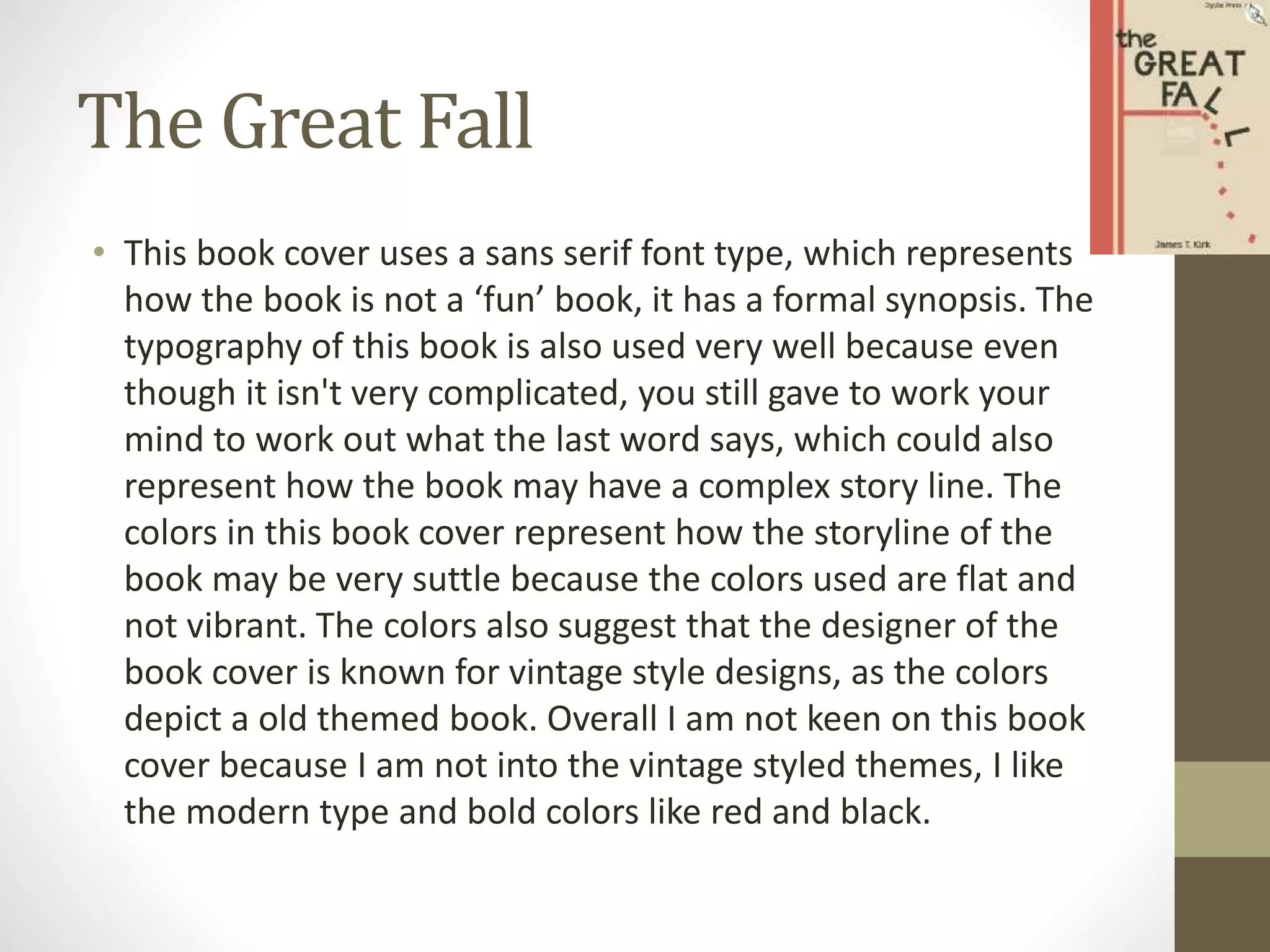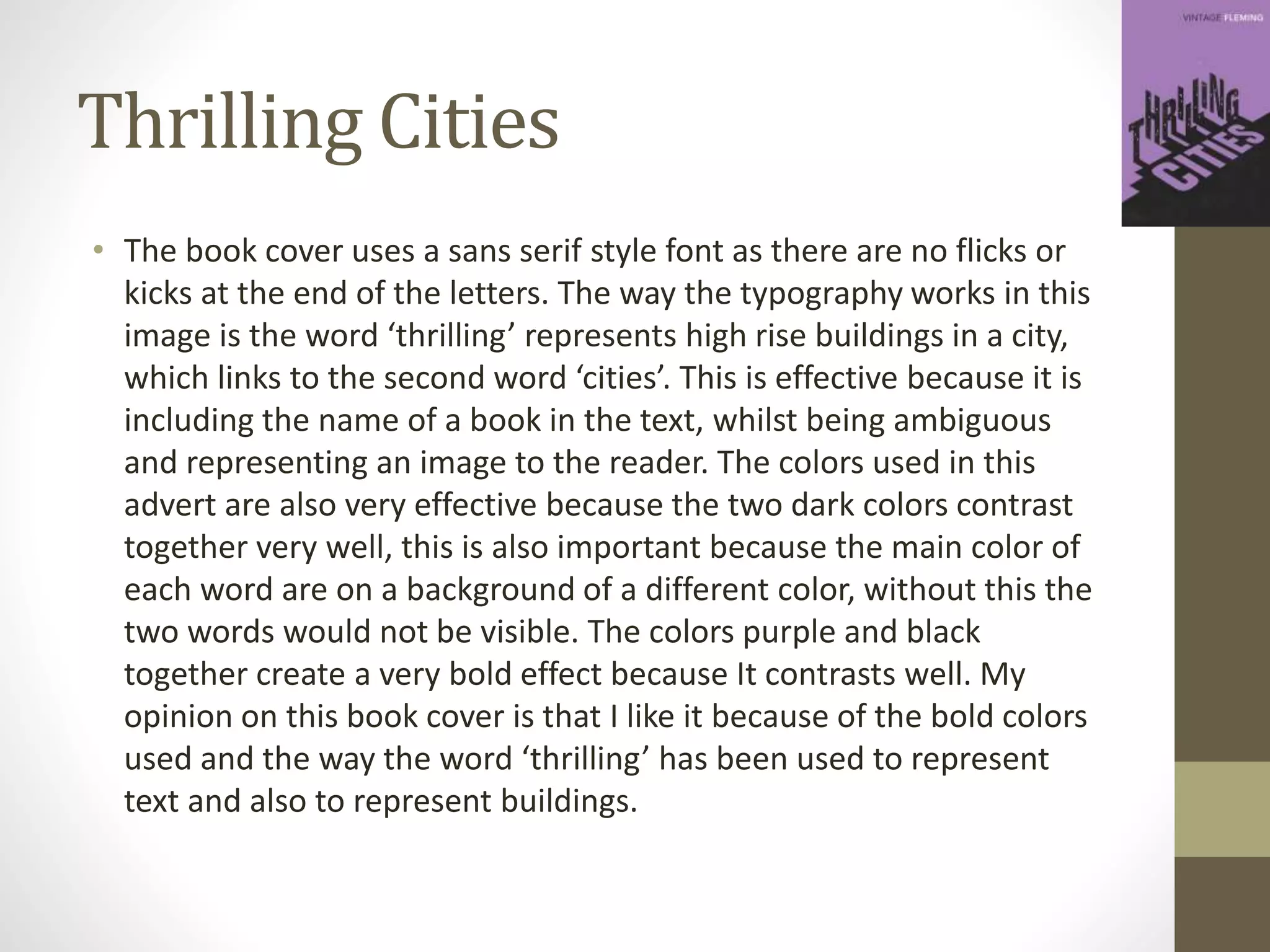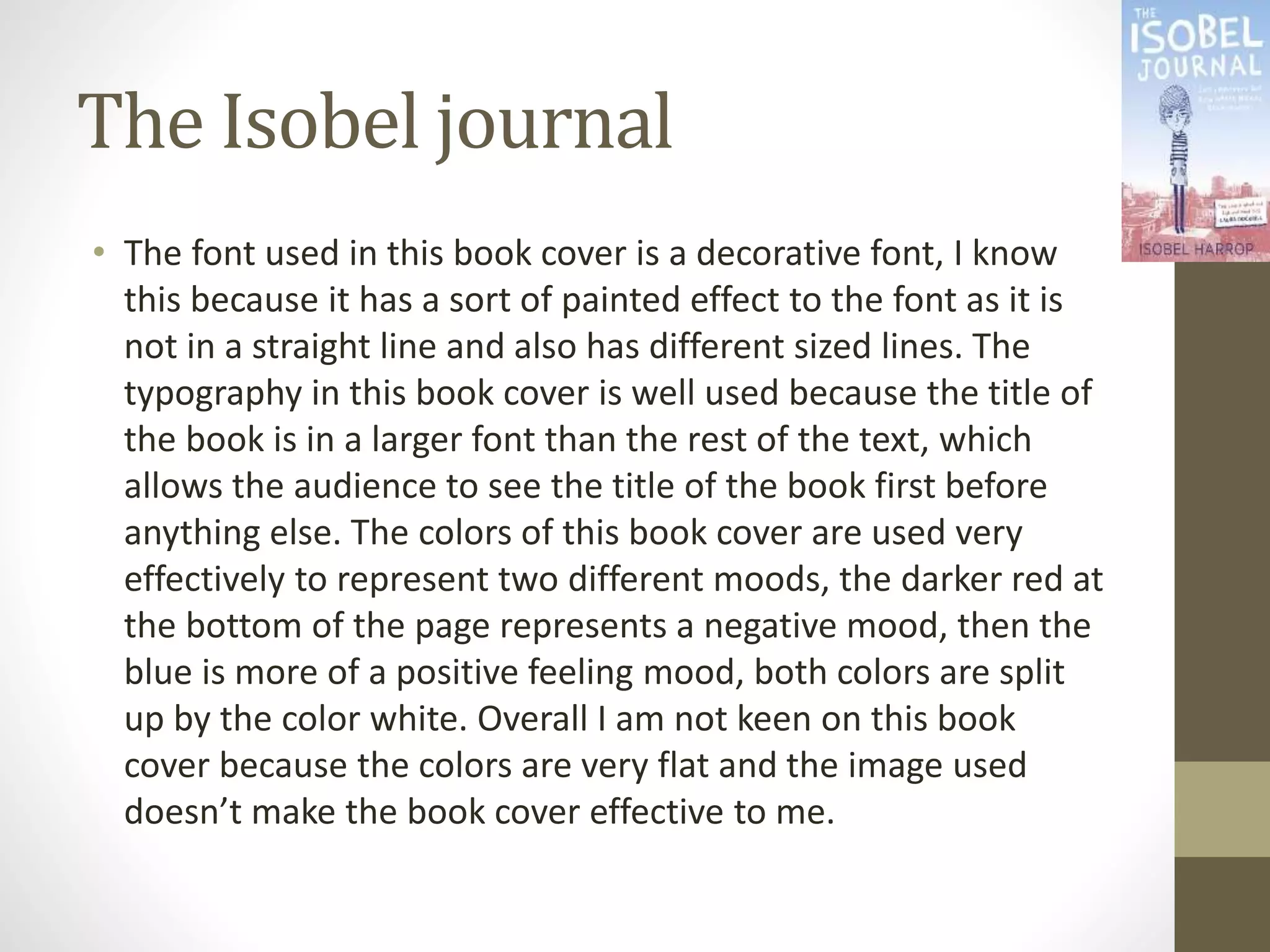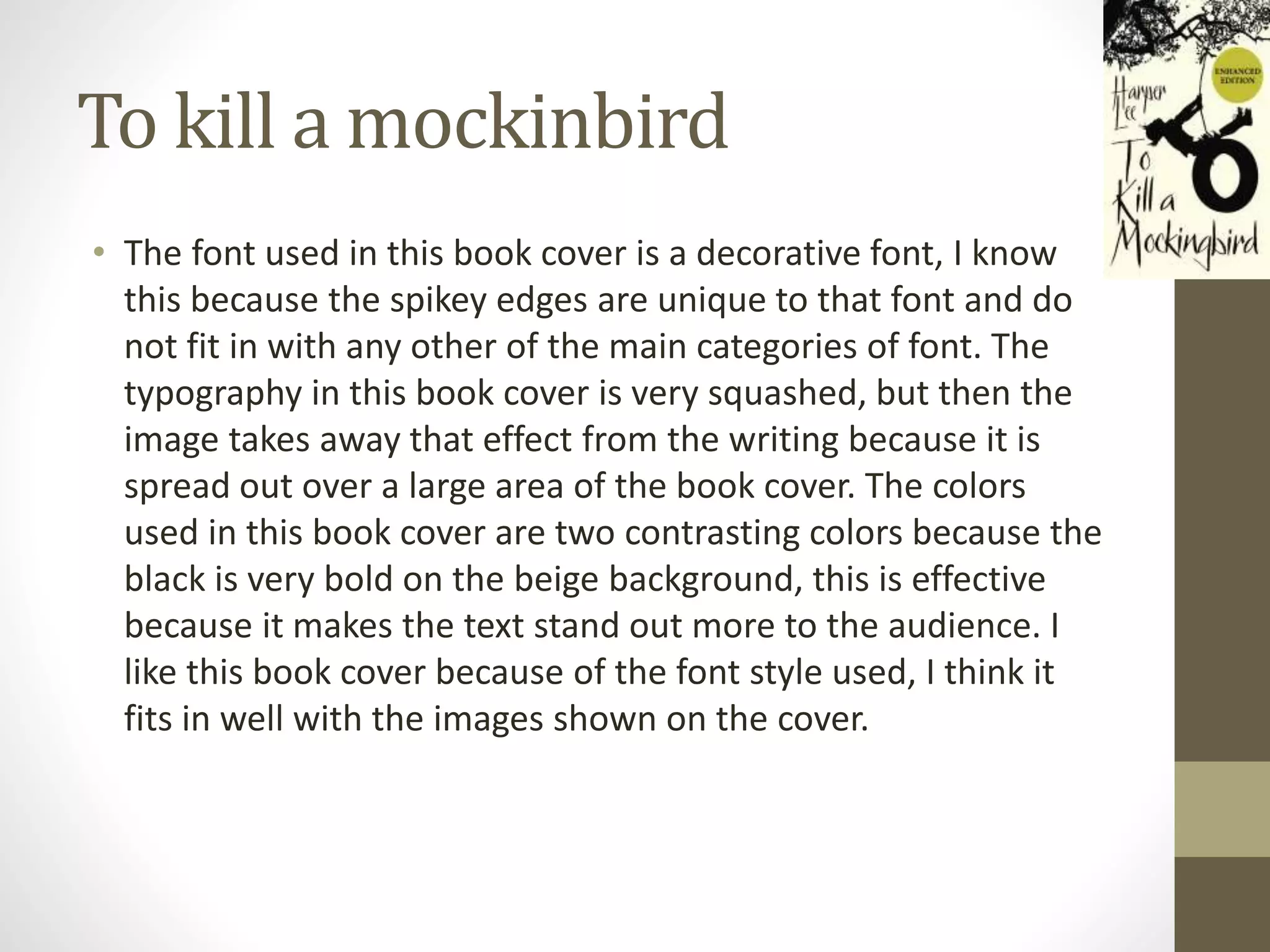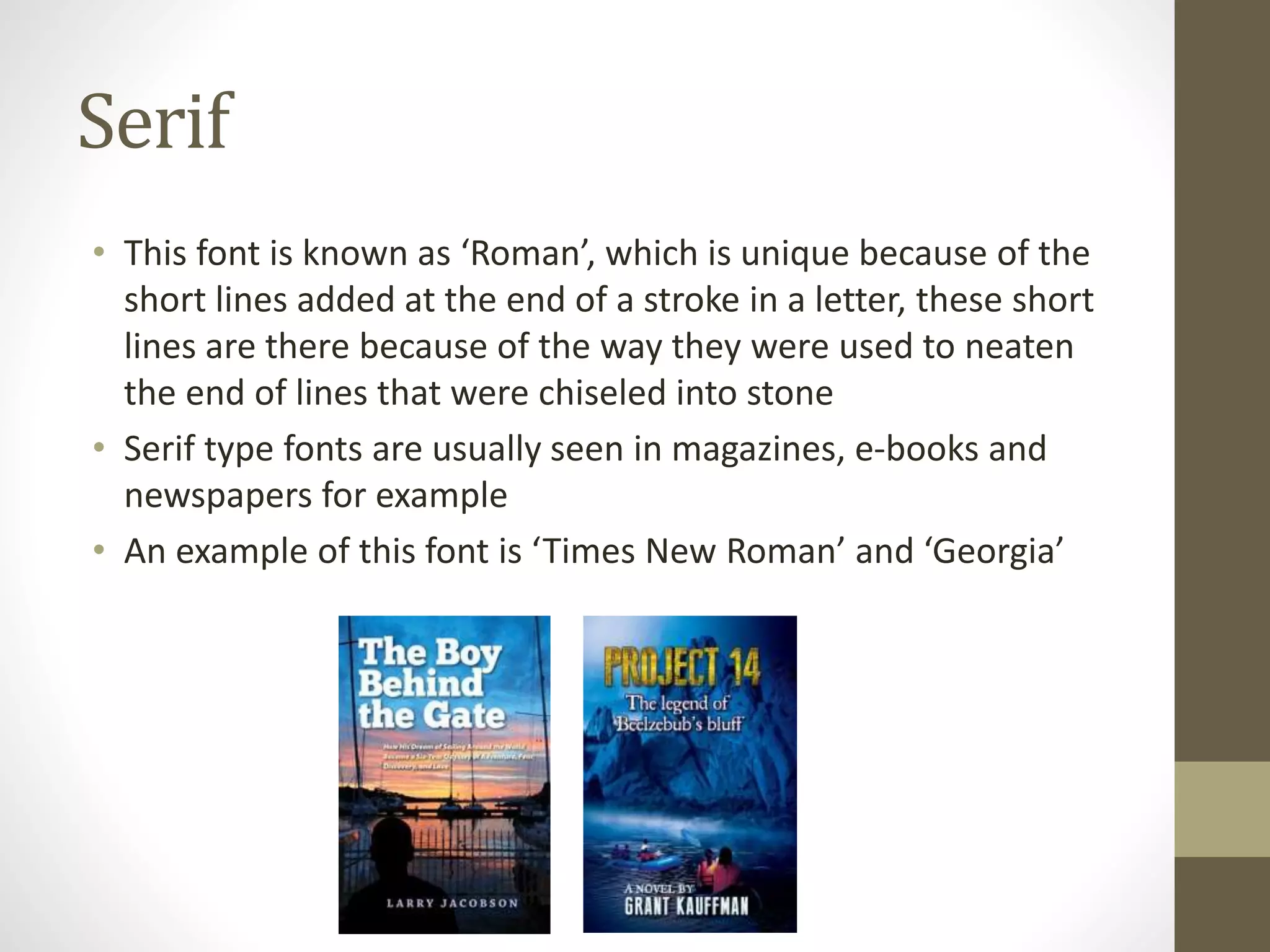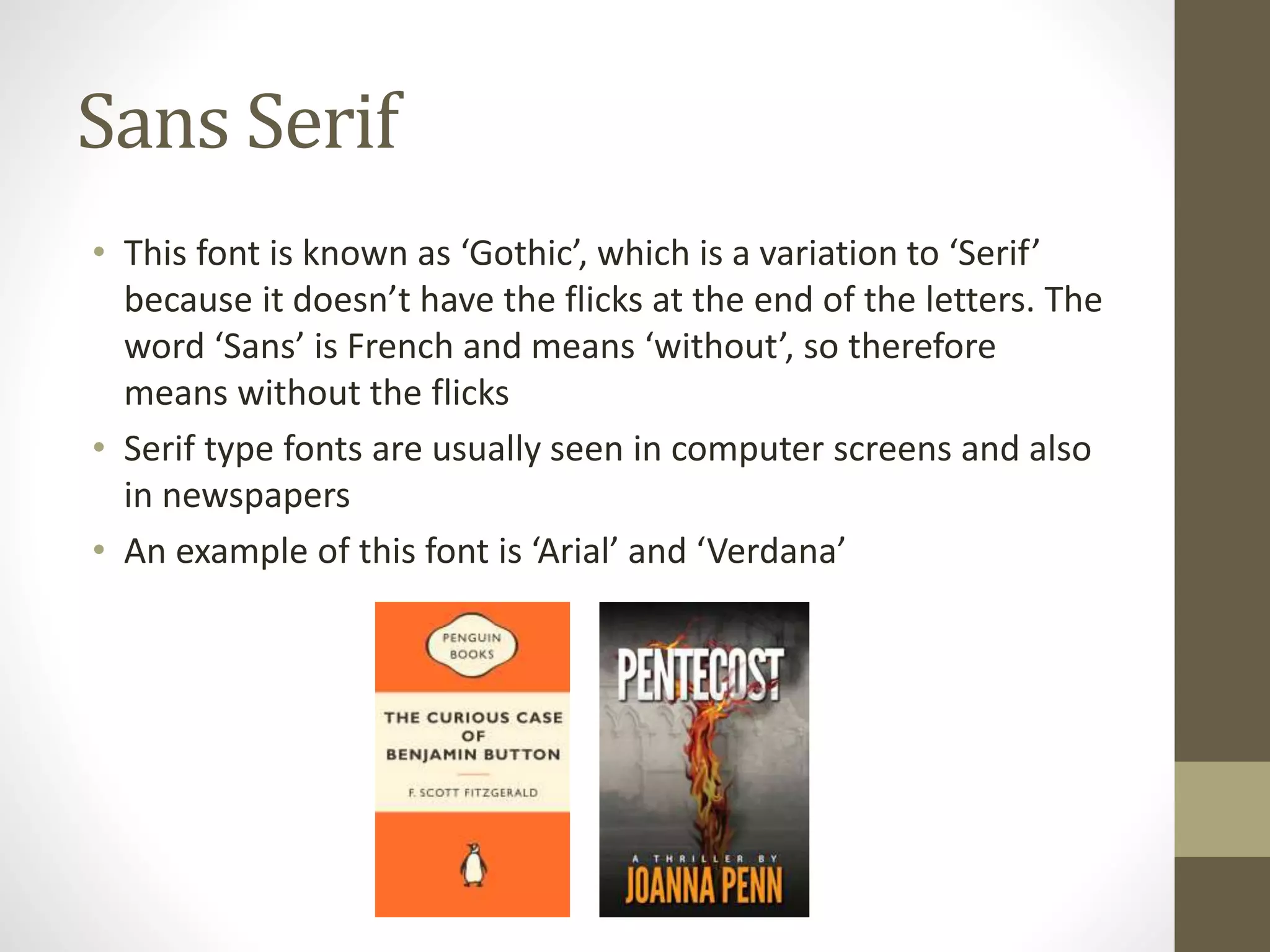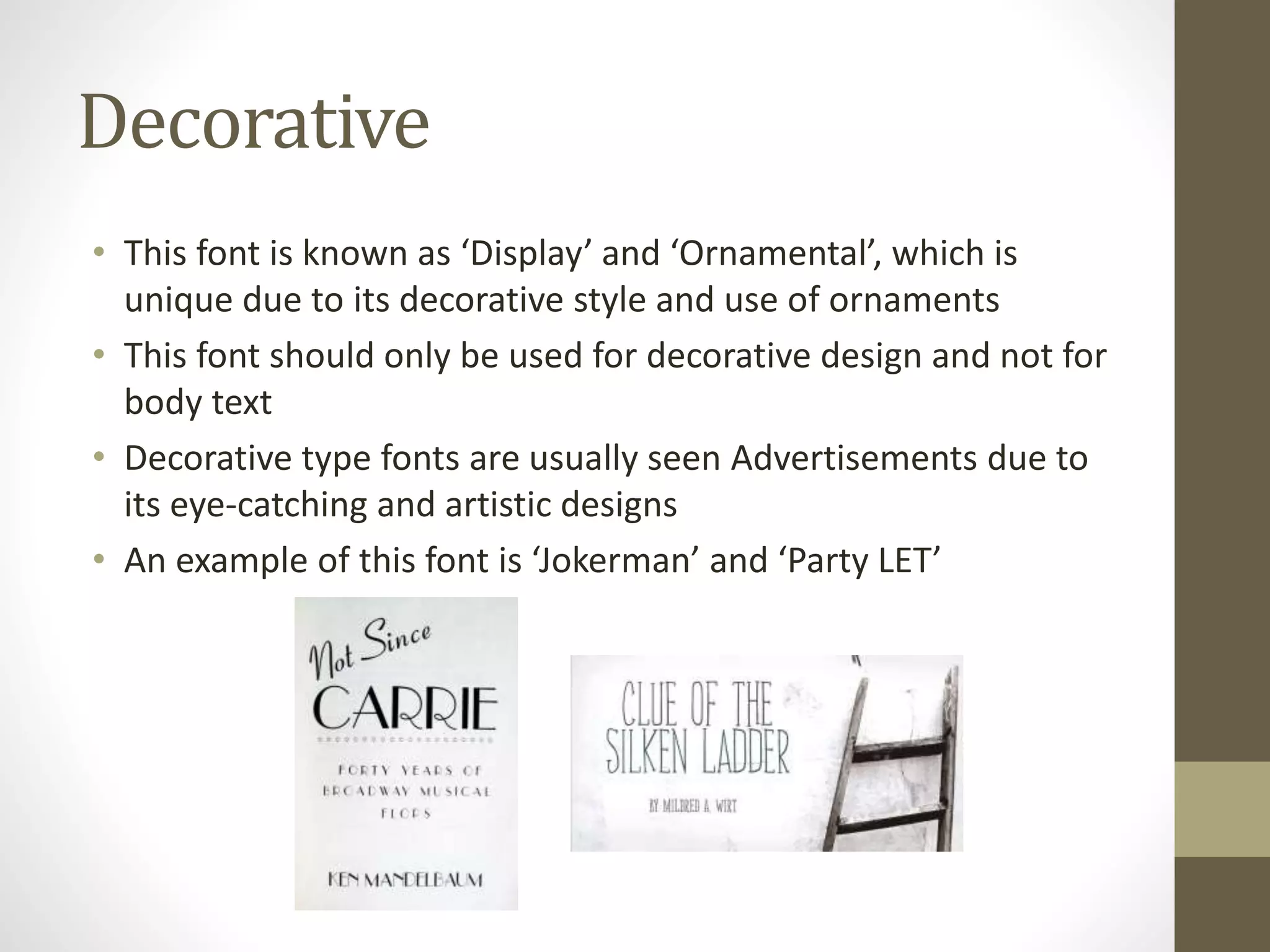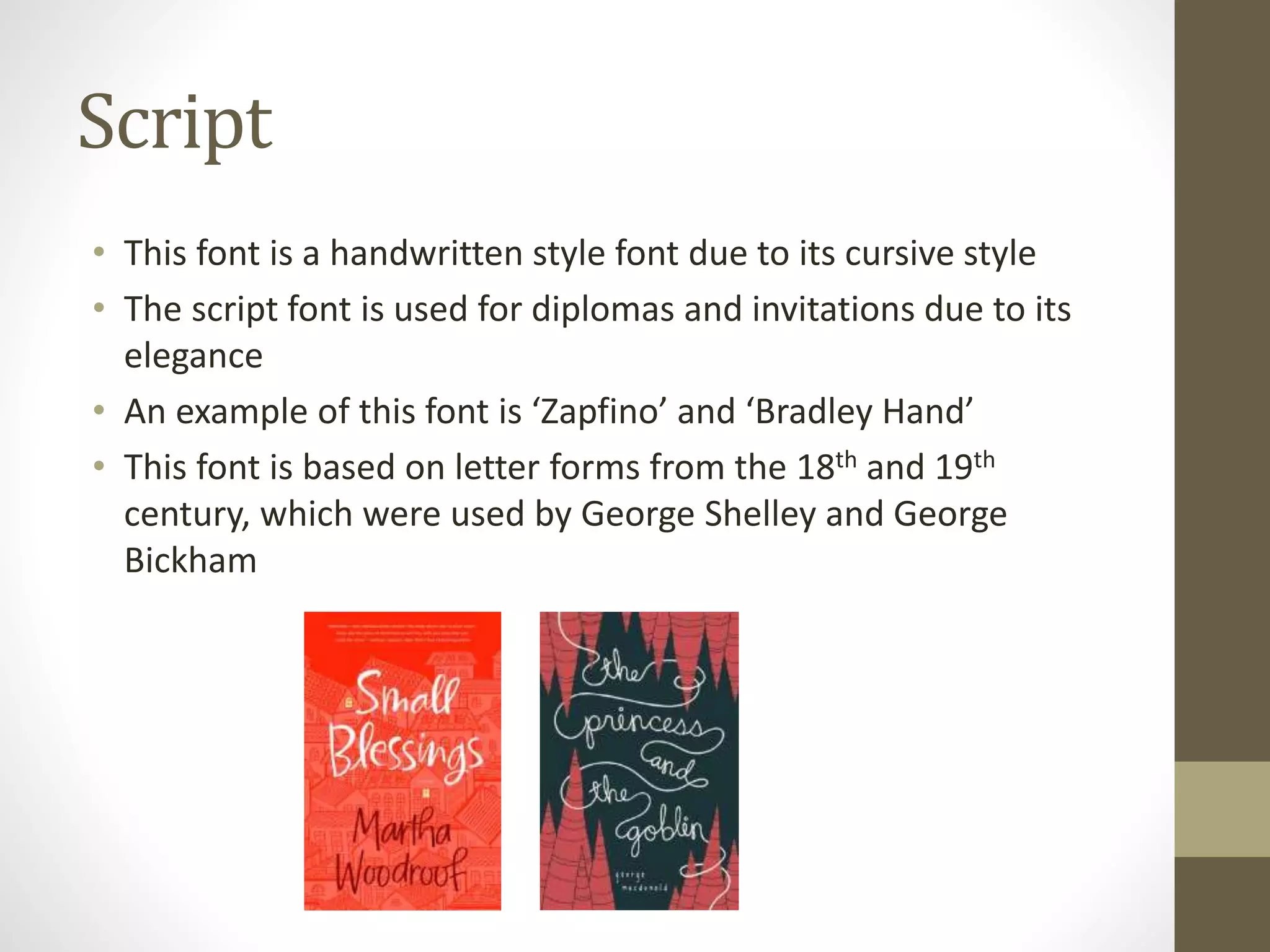
Typography (fonts)
• Photoshop uses many fonts, aswell as most other programs,
but there are 4 main font types that are used
• These different fonts are used depending on the context of
the piece of work that you are doing, for example script would
be used when typing up a formal letter or to add a signature
No flicks or kicks at end of letters
Flicks or kicks at end of letters
Hand written style font
More of a playful font
Font Families
• Different fonts can have ‘families’, which means that there are
different types of that font, e.g Bold, Italic, Regular.
• There are a lot of fonts in photoshop that have font families,
for example Myriad
Serif
• This font is known as ‘Roman’, which is unique because of the
short lines added at the end of a stroke in a letter, these short
lines are there because of the way they were used to neaten
the end of lines that were chiseled into stone
• Serif type fonts are usually seen in magazines, e-books and
newspapers for example
• An example of this font is ‘Times New Roman’ and ‘Georgia’
Sans Serif
• This font is known as ‘Gothic’, which is a variation to ‘Serif’
because it doesn’t have the flicks at the end of the letters. The
word ‘Sans’ is French and means ‘without’, so therefore
means without the flicks
• Serif type fonts are usually seen in computer screens and also
in newspapers
• An example of this font is ‘Arial’ and ‘Verdana’
Decorative
• This font is known as ‘Display’ and ‘Ornamental’, which is
unique due to its decorative style and use of ornaments
• This font should only be used for decorative design and not for
body text
• Decorative type fonts are usually seen Advertisements due to
its eye-catching and artistic designs
• An example of this font is ‘Jokerman’ and ‘Party LET’
Script
• This font is a handwritten style font due to its cursive style
• The script font is used for diplomas and invitations due to its
elegance
• An example of this font is ‘Zapfino’ and ‘Bradley Hand’
• This font is based on letter forms from the 18th and 19th
century, which were used by George Shelley and George
Bickham
Typography Book Covers
I'm with the brand
• The way the text is created in this book cover is very unique as
it is using images of equipment, to then form the shape of
different letters, which then make the word ‘im with the
brand’. The typography on this book cover suggest that the
book will be very complex and well written, hence the unique
design. In the top right of the book cover there is a ‘device’
that is linked to all of the equipment, which therefore suggests
that the storyline of the book all links together in one way or
another. The two colors in the book cover contrast very well
and this therefore allows the technique to work very well.
Overall I like this book cover because it is unique the way the
letters have been formed, they have not just been typed like
all other book covers.
The Gettysburg Address
• The text in this image is varied in size, this is done to add
emphasis to certain words that have more meaning than
others. For example the larger text is seen first, which
therefore means it has more meaning. The text has been
placed in the image of a mans face, which represents how the
main character in the book is a male, which therefore gives
the audience a little sneak peak of part of the book. The colors
used in the book cover are very bold and strong to create a
formal feeling, the black sits nicely on the purple which is
important because it makes the white text stand out on the
two darker colors, this is because the text is a bright white
color and the background colors are dark. I think this book
cover is well made overall because of the colors used as they
work well together and the way the text has been placed
inside the image of the mans face.
The Great Fall
• This book cover uses a sans serif font type, which represents
how the book is not a ‘fun’ book, it has a formal synopsis. The
typography of this book is also used very well because even
though it isn't very complicated, you still gave to work your
mind to work out what the last word says, which could also
represent how the book may have a complex story line. The
colors in this book cover represent how the storyline of the
book may be very suttle because the colors used are flat and
not vibrant. The colors also suggest that the designer of the
book cover is known for vintage style designs, as the colors
depict a old themed book. Overall I am not keen on this book
cover because I am not into the vintage styled themes, I like
the modern type and bold colors like red and black.
Thrilling Cities
• The book cover uses a sans serif style font as there are no flicks or
kicks at the end of the letters. The way the typography works in this
image is the word ‘thrilling’ represents high rise buildings in a city,
which links to the second word ‘cities’. This is effective because it is
including the name of a book in the text, whilst being ambiguous
and representing an image to the reader. The colors used in this
advert are also very effective because the two dark colors contrast
together very well, this is also important because the main color of
each word are on a background of a different color, without this the
two words would not be visible. The colors purple and black
together create a very bold effect because It contrasts well. My
opinion on this book cover is that I like it because of the bold colors
used and the way the word ‘thrilling’ has been used to represent
text and also to represent buildings.
Everything is illuminated
• The text in this image is a decorative style font, which is also
scattered all over the screen, this is effective because it can be
complicated and confusing to some people to be able to read
the title of the book. This allows the audience to be able to
understand the genre of the book, which could suggest a
mystery styled synopsis. The varied text size is effective as well
because it adds emphasize onto the larger text because the
larger text is what the audience see first. The colors used in
this book are very widely used as they create a bold mood
about the book and allows the white text to stand out on the
black background. I like this book cover a lot because of the
decorative font used and also the colors, I think the colors
work very well together.
The ‘s Vow
• The font used in this book cover is a serif font as there are flicks on
the end of the letters. The typography in this book cover is very plain
but effective because the second word has to be worked out by
naming the animal shown. This is a way of making the book cover
unique because this technique is not used very much and so
therefore makes people remember the book cover. The typography
is also well used in this book cover because there are only 2 actual
words on the cover, this is good because it allows the audience to
focus on the image as it is the largest thing on the book cover. This
colors used in this book cover are very simple, also there are only 2
colors used, pink and black. This represents how the designer
wanted to give a simple effect to the audience so that they can
clearly understand the message. My opinion on this book cover is
that I like it because it is very plain, but it is also very effective
because of the single words used.
The Isobel journal
• The font used in this book cover is a decorative font, I know
this because it has a sort of painted effect to the font as it is
not in a straight line and also has different sized lines. The
typography in this book cover is well used because the title of
the book is in a larger font than the rest of the text, which
allows the audience to see the title of the book first before
anything else. The colors of this book cover are used very
effectively to represent two different moods, the darker red at
the bottom of the page represents a negative mood, then the
blue is more of a positive feeling mood, both colors are split
up by the color white. Overall I am not keen on this book
cover because the colors are very flat and the image used
doesn’t make the book cover effective to me.
ABCD……
• The font used in this book cover is a decorative font, I know
this because of the individual letters used to type out the
alphabet and not a word. The typography in this book cover is
very effective because it is very rare that this technique is
used, this is because not many other book covers only use
letters to form the alphabet. The letters are also made of
different shapes and colors, which is also effective because it
makes each letter unique, so that the audience have many
different things to look at on the book cover. This therefore
suggests that this book is unique because of its storyline. The
background color of this book cover is very plain, but lots of
different colors have been used on the letters, which allows
the letters to stand out and as I said before be unique. Overall
I do not really like this book cover because to me it doesn't’t
really make any sense on what it is trying to say.
To kill a mockinbird
• The font used in this book cover is a decorative font, I know
this because the spikey edges are unique to that font and do
not fit in with any other of the main categories of font. The
typography in this book cover is very squashed, but then the
image takes away that effect from the writing because it is
spread out over a large area of the book cover. The colors
used in this book cover are two contrasting colors because the
black is very bold on the beige background, this is effective
because it makes the text stand out more to the audience. I
like this book cover because of the font style used, I think it
fits in well with the images shown on the cover.
Of mice and men
• The font used in this book cover is a sans serif font, I know this
because of the style of the font. The typography on this book
cover is effective because the two words ‘mice’ and ‘men’ are
two complete opposites, which gives the audience an idea of
what the books synopsis is about. The two main words are
also in a larger font, which therefore means the audience will
see them two words first. The colors used in this book cover
are effective because they give a painted color effect as the
colors are darker in some areas and lighter in overs. In my
opinion I am not too keen on this book cover because I don’t
really like the painted effect, I prefer the bold text in book
covers.
10 book covers and font research
Typography (fonts) • Photoshopuses many fonts, aswell as most other programs, but there are 4 main font types that are used • These different fonts are used depending on the context of the piece of work that you are doing, for example script would be used when typing up a formal letter or to add a signature No flicks or kicks at end of letters Flicks or kicks at end of letters Hand written style font More of a playful font
Font Families • Differentfonts can have ‘families’, which means that there are different types of that font, e.g Bold, Italic, Regular. • There are a lot of fonts in photoshop that have font families, for example Myriad
Serif • This fontis known as ‘Roman’, which is unique because of the short lines added at the end of a stroke in a letter, these short lines are there because of the way they were used to neaten the end of lines that were chiseled into stone • Serif type fonts are usually seen in magazines, e-books and newspapers for example • An example of this font is ‘Times New Roman’ and ‘Georgia’
Sans Serif • Thisfont is known as ‘Gothic’, which is a variation to ‘Serif’ because it doesn’t have the flicks at the end of the letters. The word ‘Sans’ is French and means ‘without’, so therefore means without the flicks • Serif type fonts are usually seen in computer screens and also in newspapers • An example of this font is ‘Arial’ and ‘Verdana’
• 6.
Decorative • This fontis known as ‘Display’ and ‘Ornamental’, which is unique due to its decorative style and use of ornaments • This font should only be used for decorative design and not for body text • Decorative type fonts are usually seen Advertisements due to its eye-catching and artistic designs • An example of this font is ‘Jokerman’ and ‘Party LET’
• 7.
Script • This fontis a handwritten style font due to its cursive style • The script font is used for diplomas and invitations due to its elegance • An example of this font is ‘Zapfino’ and ‘Bradley Hand’ • This font is based on letter forms from the 18th and 19th century, which were used by George Shelley and George Bickham
• 8.
• 9.
I'm with thebrand • The way the text is created in this book cover is very unique as it is using images of equipment, to then form the shape of different letters, which then make the word ‘im with the brand’. The typography on this book cover suggest that the book will be very complex and well written, hence the unique design. In the top right of the book cover there is a ‘device’ that is linked to all of the equipment, which therefore suggests that the storyline of the book all links together in one way or another. The two colors in the book cover contrast very well and this therefore allows the technique to work very well. Overall I like this book cover because it is unique the way the letters have been formed, they have not just been typed like all other book covers.
• 10.
The Gettysburg Address •The text in this image is varied in size, this is done to add emphasis to certain words that have more meaning than others. For example the larger text is seen first, which therefore means it has more meaning. The text has been placed in the image of a mans face, which represents how the main character in the book is a male, which therefore gives the audience a little sneak peak of part of the book. The colors used in the book cover are very bold and strong to create a formal feeling, the black sits nicely on the purple which is important because it makes the white text stand out on the two darker colors, this is because the text is a bright white color and the background colors are dark. I think this book cover is well made overall because of the colors used as they work well together and the way the text has been placed inside the image of the mans face.
• 11.
The Great Fall •This book cover uses a sans serif font type, which represents how the book is not a ‘fun’ book, it has a formal synopsis. The typography of this book is also used very well because even though it isn't very complicated, you still gave to work your mind to work out what the last word says, which could also represent how the book may have a complex story line. The colors in this book cover represent how the storyline of the book may be very suttle because the colors used are flat and not vibrant. The colors also suggest that the designer of the book cover is known for vintage style designs, as the colors depict a old themed book. Overall I am not keen on this book cover because I am not into the vintage styled themes, I like the modern type and bold colors like red and black.
• 12.
Thrilling Cities • Thebook cover uses a sans serif style font as there are no flicks or kicks at the end of the letters. The way the typography works in this image is the word ‘thrilling’ represents high rise buildings in a city, which links to the second word ‘cities’. This is effective because it is including the name of a book in the text, whilst being ambiguous and representing an image to the reader. The colors used in this advert are also very effective because the two dark colors contrast together very well, this is also important because the main color of each word are on a background of a different color, without this the two words would not be visible. The colors purple and black together create a very bold effect because It contrasts well. My opinion on this book cover is that I like it because of the bold colors used and the way the word ‘thrilling’ has been used to represent text and also to represent buildings.
• 13.
Everything is illuminated •The text in this image is a decorative style font, which is also scattered all over the screen, this is effective because it can be complicated and confusing to some people to be able to read the title of the book. This allows the audience to be able to understand the genre of the book, which could suggest a mystery styled synopsis. The varied text size is effective as well because it adds emphasize onto the larger text because the larger text is what the audience see first. The colors used in this book are very widely used as they create a bold mood about the book and allows the white text to stand out on the black background. I like this book cover a lot because of the decorative font used and also the colors, I think the colors work very well together.
• 14.
The ‘s Vow •The font used in this book cover is a serif font as there are flicks on the end of the letters. The typography in this book cover is very plain but effective because the second word has to be worked out by naming the animal shown. This is a way of making the book cover unique because this technique is not used very much and so therefore makes people remember the book cover. The typography is also well used in this book cover because there are only 2 actual words on the cover, this is good because it allows the audience to focus on the image as it is the largest thing on the book cover. This colors used in this book cover are very simple, also there are only 2 colors used, pink and black. This represents how the designer wanted to give a simple effect to the audience so that they can clearly understand the message. My opinion on this book cover is that I like it because it is very plain, but it is also very effective because of the single words used.
• 15.
The Isobel journal •The font used in this book cover is a decorative font, I know this because it has a sort of painted effect to the font as it is not in a straight line and also has different sized lines. The typography in this book cover is well used because the title of the book is in a larger font than the rest of the text, which allows the audience to see the title of the book first before anything else. The colors of this book cover are used very effectively to represent two different moods, the darker red at the bottom of the page represents a negative mood, then the blue is more of a positive feeling mood, both colors are split up by the color white. Overall I am not keen on this book cover because the colors are very flat and the image used doesn’t make the book cover effective to me.
• 16.
ABCD…… • The fontused in this book cover is a decorative font, I know this because of the individual letters used to type out the alphabet and not a word. The typography in this book cover is very effective because it is very rare that this technique is used, this is because not many other book covers only use letters to form the alphabet. The letters are also made of different shapes and colors, which is also effective because it makes each letter unique, so that the audience have many different things to look at on the book cover. This therefore suggests that this book is unique because of its storyline. The background color of this book cover is very plain, but lots of different colors have been used on the letters, which allows the letters to stand out and as I said before be unique. Overall I do not really like this book cover because to me it doesn't’t really make any sense on what it is trying to say.
• 17.
To kill amockinbird • The font used in this book cover is a decorative font, I know this because the spikey edges are unique to that font and do not fit in with any other of the main categories of font. The typography in this book cover is very squashed, but then the image takes away that effect from the writing because it is spread out over a large area of the book cover. The colors used in this book cover are two contrasting colors because the black is very bold on the beige background, this is effective because it makes the text stand out more to the audience. I like this book cover because of the font style used, I think it fits in well with the images shown on the cover.
• 18.
Of mice andmen • The font used in this book cover is a sans serif font, I know this because of the style of the font. The typography on this book cover is effective because the two words ‘mice’ and ‘men’ are two complete opposites, which gives the audience an idea of what the books synopsis is about. The two main words are also in a larger font, which therefore means the audience will see them two words first. The colors used in this book cover are effective because they give a painted color effect as the colors are darker in some areas and lighter in overs. In my opinion I am not too keen on this book cover because I don’t really like the painted effect, I prefer the bold text in book covers.